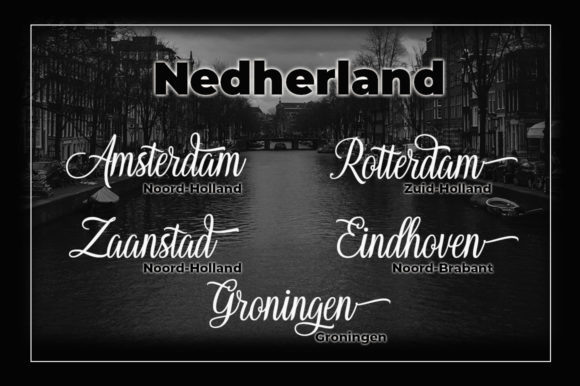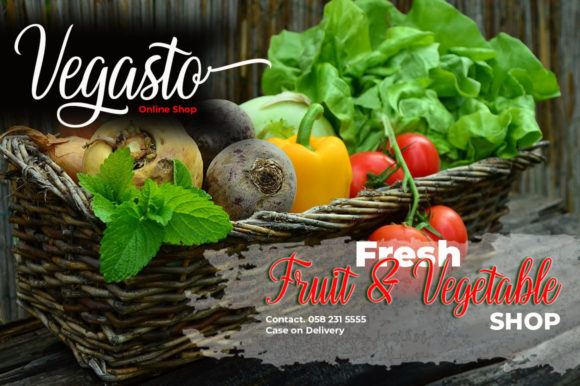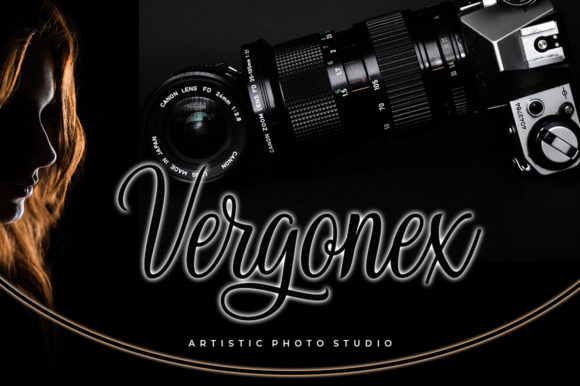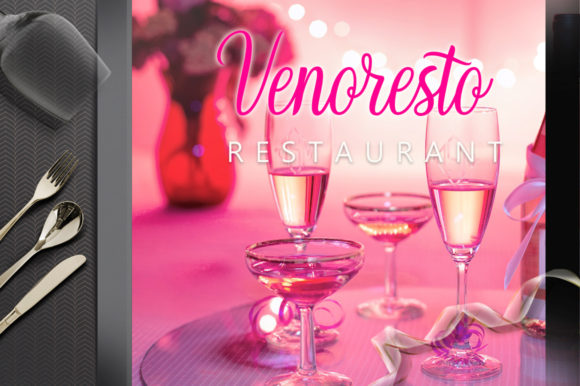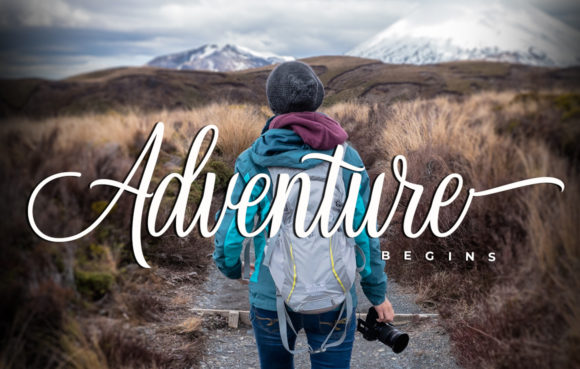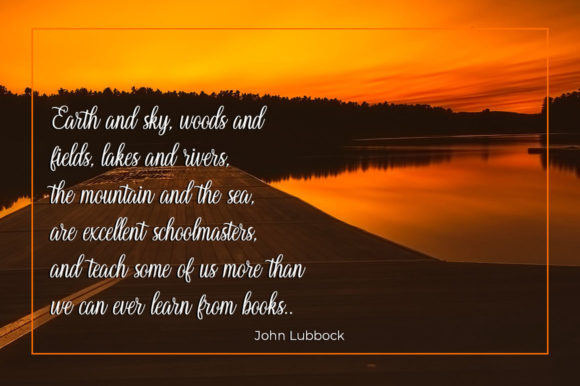
Copenhagen Font: Elevate Your Design with a Touch of Humanity
In the world of typography, fonts play a crucial role in conveying the tone and personality of a brand. For designers and crafters looking to add a touch of humanity to their work, the Copenhagen font is an excellent choice. This handwritten brush font is designed to mimic the expression of real handwriting, making it perfect for creating beautiful and exciting pieces of work.
The Charm of Handwritten Typography
The Copenhagen font is a hand-lettered typeface that adds a real human touch to any design project. Its unique, handwritten look is characterized by loving details and charming imperfections, making it an ideal choice for brands that want to appear upscale and chic. Whether you’re working on a fashion brand, e-commerce website, trend blog, or wedding boutique, this font is sure to elevate your design and leave a lasting impression on your audience.
Key Features of the Copenhagen Font
So, what sets the Copenhagen font apart from other typefaces? Here are some of its key features:
- Handwritten brush font: The Copenhagen font is designed to mimic the look of real handwriting, with a natural, fluid feel that’s perfect for creating beautiful and exciting pieces of work.
- Lots of alternates: With a wide range of alternates, you can build your text to resemble real handwriting, complete with charming imperfections and variations.
- Human touch: The hand-lettered look adds a real human touch to your design, making it perfect for brands that want to appear friendly, approachable, and upscale.
Perfect for Fashion, E-commerce, and More
The Copenhagen font is a versatile typeface that works perfectly for a variety of design projects, including:
- Fashion brands: Add a touch of elegance and sophistication to your fashion brand with the Copenhagen font.
- E-commerce websites: Create a beautiful and upscale online shopping experience with this stunning font.
- Trend blogs: Stay ahead of the curve with a font that’s perfect for trend blogs and lifestyle websites.
- Wedding boutiques: Add a touch of romance and whimsy to your wedding boutique with the Copenhagen font.
Why Choose the Copenhagen Font?
So, why should you choose the Copenhagen font for your design project? Here are just a few reasons:
- Unique and eye-catching: The Copenhagen font is a unique and eye-catching typeface that’s sure to grab attention.
- Versatile: With its wide range of alternates and hand-lettered look, this font is perfect for a variety of design projects.
- Upscale and chic: The Copenhagen font is perfect for brands that want to appear upscale and chic.
In conclusion, the Copenhagen font is a beautiful and versatile typeface that’s perfect for designers and crafters looking to add a touch of humanity to their work. With its handwritten brush font, lots of alternates, and hand-lettered look, this font is sure to elevate your design and leave a lasting impression on your audience. Whether you’re working on a fashion brand, e-commerce website, trend blog, or wedding boutique, the Copenhagen font is an excellent choice.
Get Creative with the Copenhagen Font